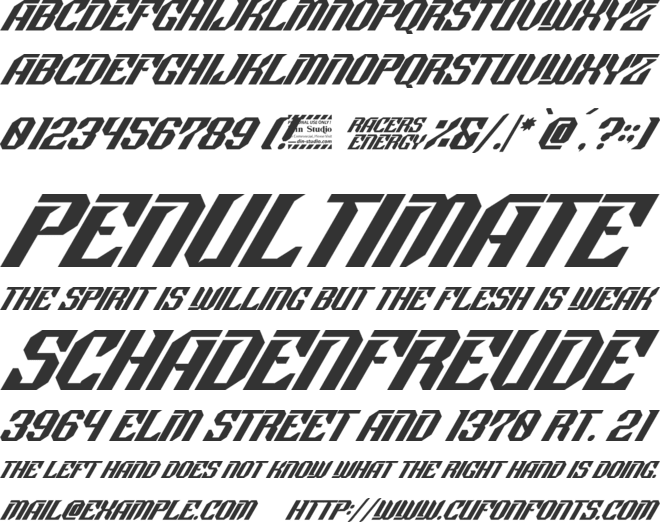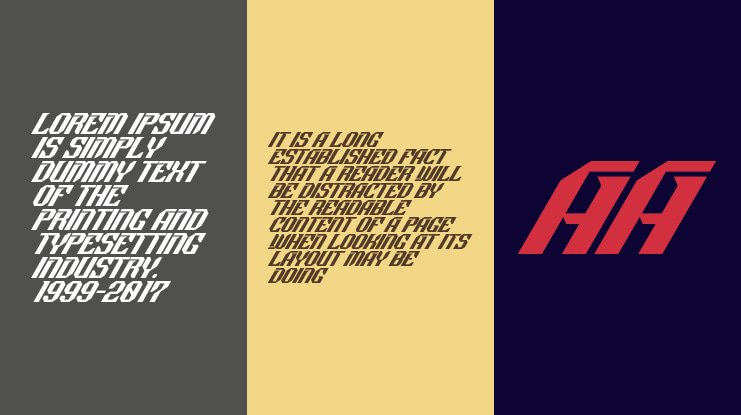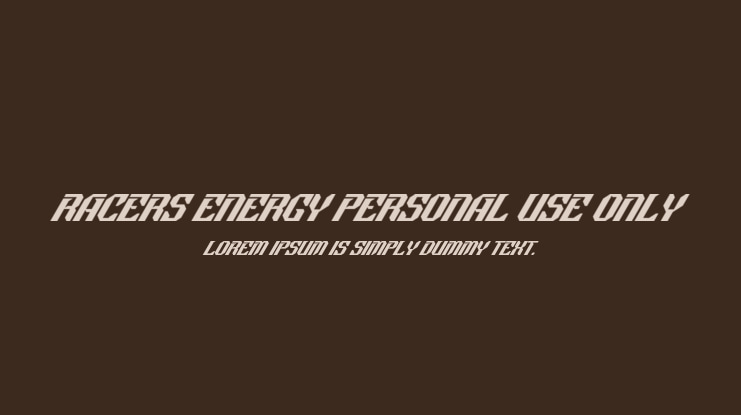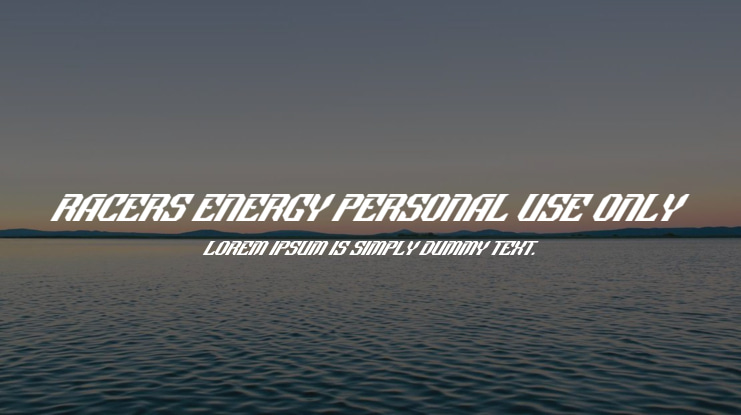
Racers Energy is a font created in capital letters with the racing theme producing courageous strong impressions in no time making it worth adding to your design list. Letters are made similar to firm rectangle blocks with sharp-angles.